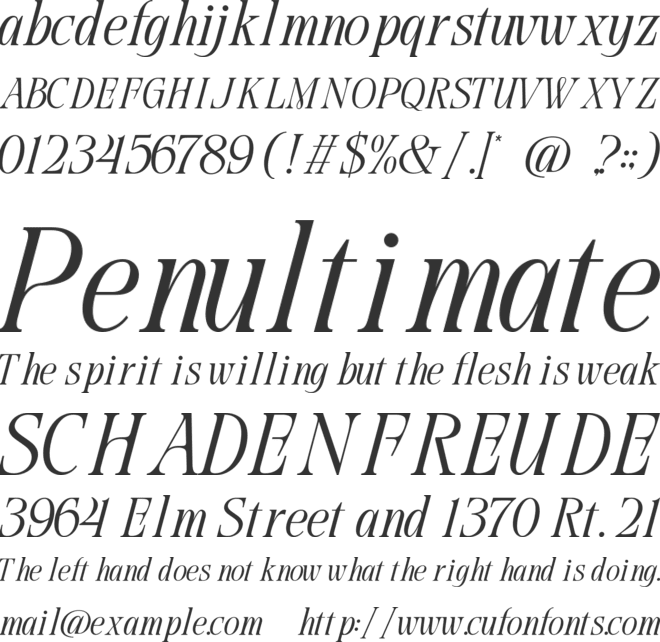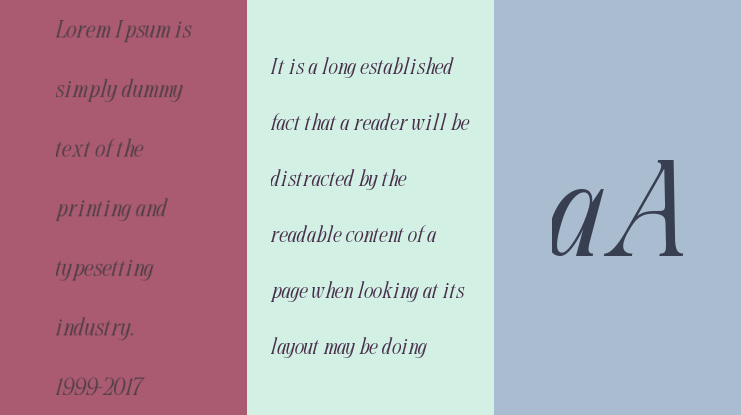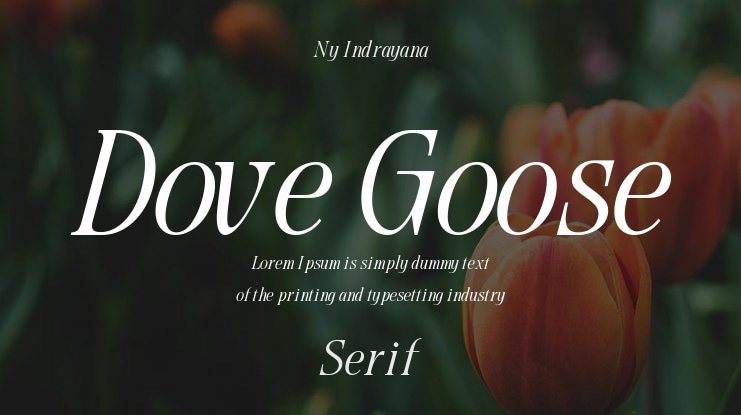
Dove Goose Font
Dove & Goose Typeface: Where Modern Elegance Takes Flight
Introducing the captivating Dove & Goose Typeface, a meticulously designed modern serif that whispers tales of grace and sophistication. This isn't just a font; it's an artistic expression, where the timeless elegance of a slanted serif meets the fluid beauty of bespoke swashes, inspired by the serene flight of doves and the majestic presence of geese.